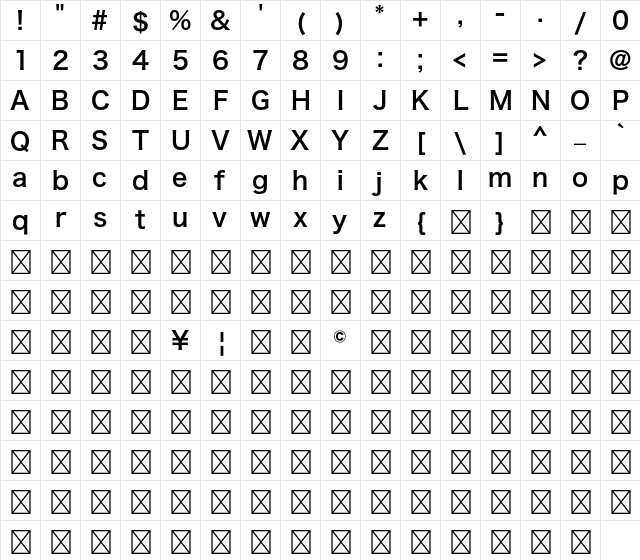
Hiragino KakuGo PackKana Std is a composed and adaptable typeface that performs quietly and consistently across a wide range of design contexts.
Who designed the Hiragino KakuGo PackKana Std W6 font?